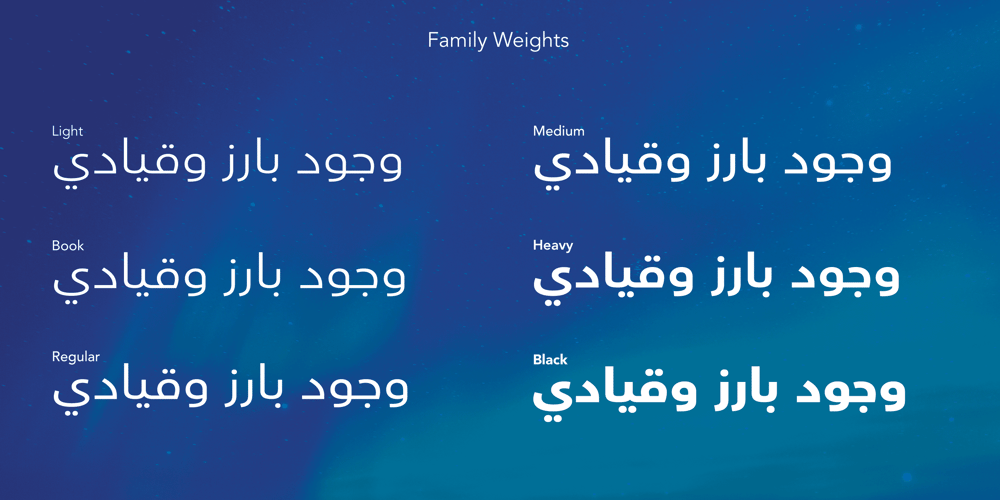
Avenir Arabic Font Family was designed by Adrian Frutiger, Nadine Chahine and published by Linotype. Avenir Arabic contains 6 styles and family package options. This Arabic extension to Adrian Frutiger’s Avenir typeface family was created by Nadine Chahine for Monotype. Avenir Arabic proudly incorporates a timeless geometric style with humanistic nuances that made Avenir so famous. Featuring six weights from Light to Black, Avenir Arabic supports OpenType features for Arabic, and includes Windows codepage 1256 Arabic character set support.